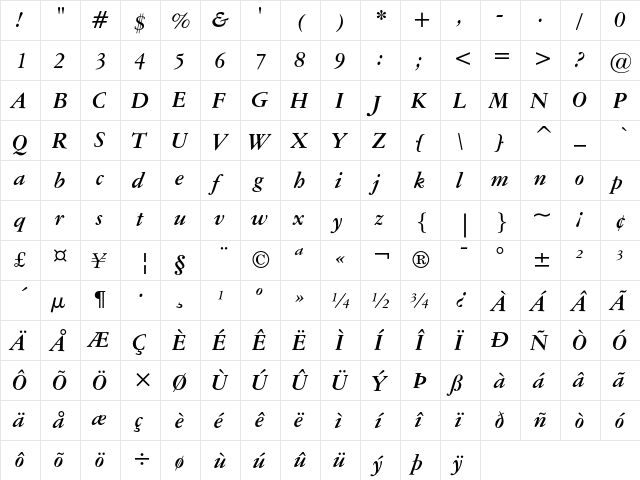
American Garamond Bold Italic Font Preview
Design Context for American Garamond Typeface
American Garamond takes a measured approach to typography — its balanced proportions and neutral character make it a reliable workhorse for both digital and print work. The dynamic lean of this cut emphasises speed and emphasis in any layout. Its bold stroke weight gives it real presence on the page.
Pro Tip: Try American Garamond for annotation and caption copy alongside an upright companion — the contrast in angle creates a dynamic but ordered typographic system.